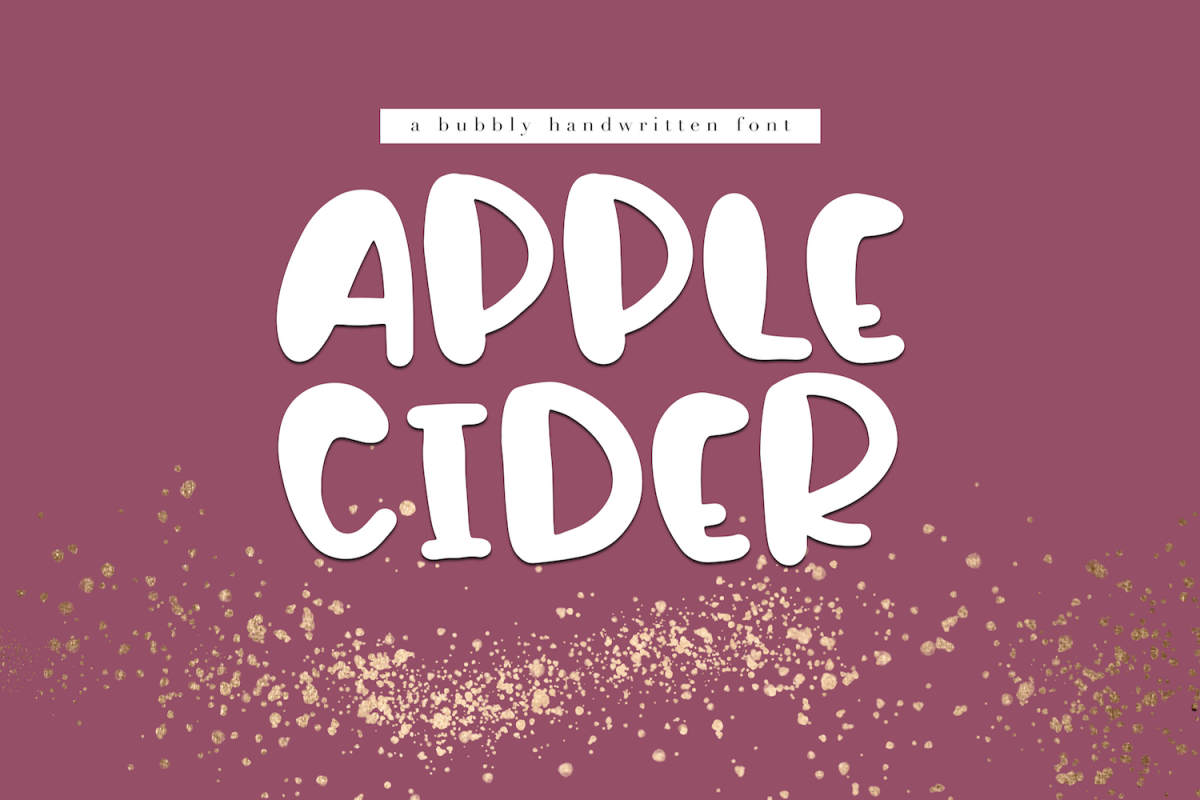
Apple Cider - A Bubbly Handwritten Font
Apple Cider is a fun handwritten font with bold letters.
*This is an all caps font*
This font is perfect for quotes, headings, designs, logos, invitations and more!
This font does not include accent characters.